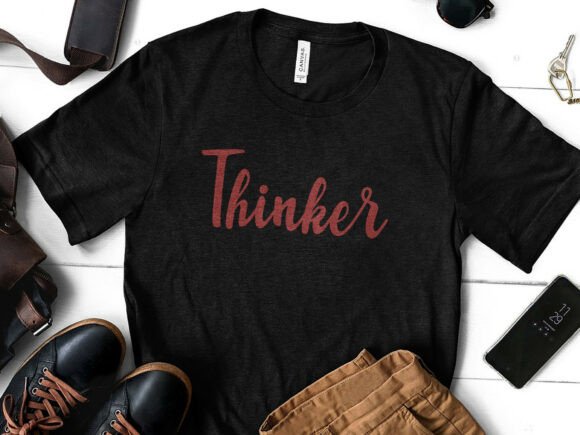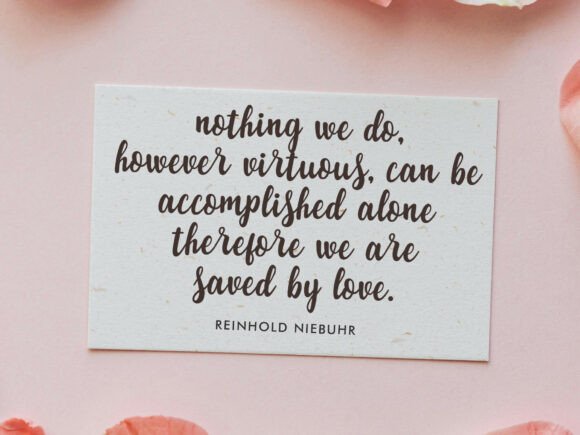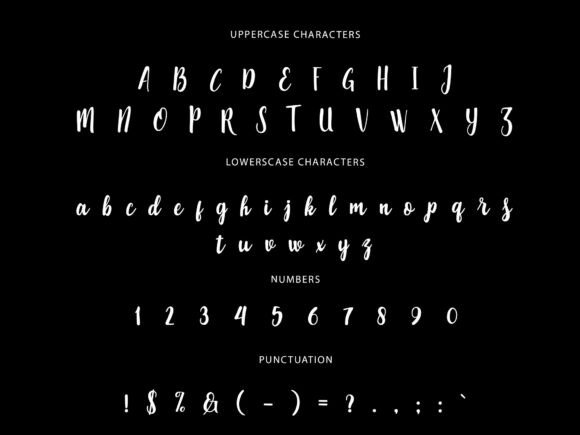
Introduction to Joomlahscript Regular Font Font
Fonts play a crucial role in design, and the Joomlahscript Regular Font font is a typeface that brings both character and versatility to any project. Whether you’re working on a branding project, a website, or a print design, the Joomlahscript Regular Font font offers a unique style that can elevate your work.
Joomlah Script is a refined and expressive handwritten script font that beautifully merges the grace of classic calligraphy with the fluidity of natural penmanship.
Each character flows with intentional elegance, characterized by sweeping curves, graceful terminals, and organic stroke variations that echo the rhythm of a skilled hand Designed with a focus on detail and craftsmanship, this font captures the romantic essence of traditional lettering while remaining highly versatile for modern design.
Key Features of Joomlahscript Regular Font Font
Why Choose Joomlahscript Regular Font Font?
The Joomlahscript Regular Font font is more than just a typeface – it’s a design tool that helps you communicate your message with style and clarity. Its unique character set and versatile design make it suitable for a wide range of applications, from elegant invitations to bold headlines.
With its carefully crafted letterforms and balanced proportions, the Joomlahscript Regular Font font ensures readability and visual appeal across all mediums.
What makes Joomlahscript Regular Font font special?
The Joomlahscript Regular Font font stands out with its unique design, exceptional readability, and versatility across various design applications.